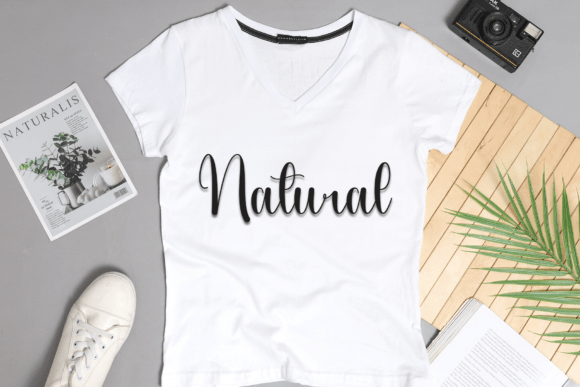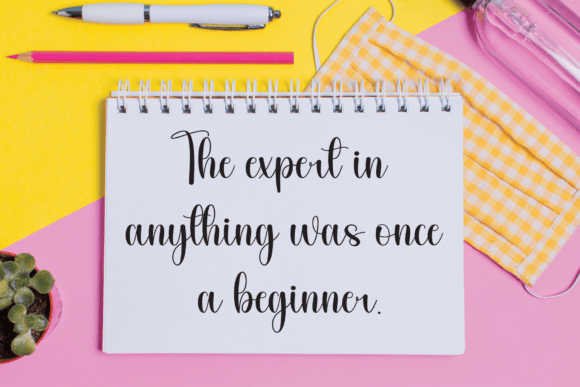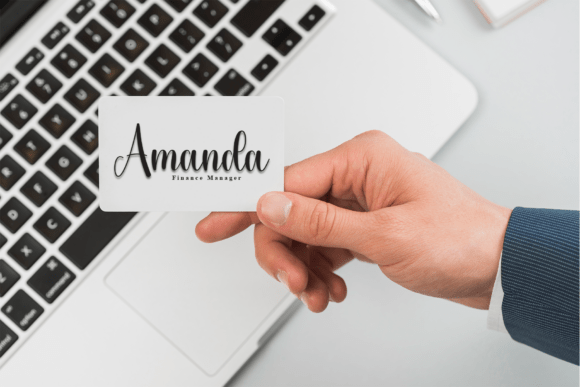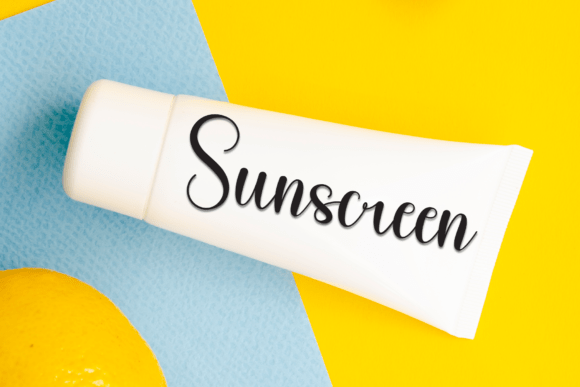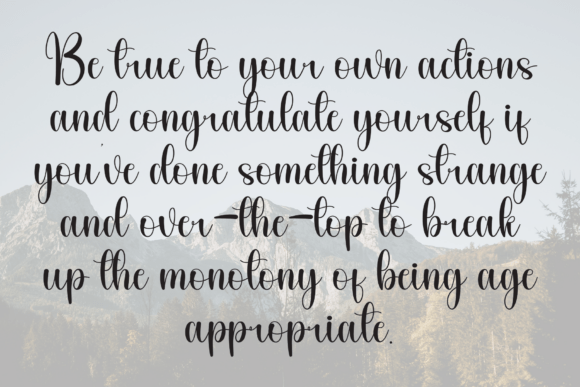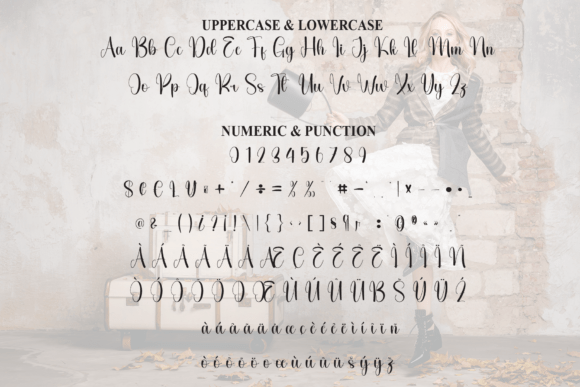
Introducing Charming Vintage: The Elegant Handwritten Script Font
Are you looking for a font that adds a touch of sophistication and playfulness to your designs? Look no further than Charming Vintage, a stylish handwritten script font that captures elegance and whimsy in every stroke. With its flowing curves and natural rhythm, this charming font is perfect for adding a personal touch to invitations, branding, and social media.
The Characteristics of Charming Vintage
Charming Vintage is a beautifully crafted font that exudes warmth and sophistication. Its graceful design features:
- Flowing curves: Charming Vintage’s curves are smooth and fluid, creating a natural rhythm that draws the eye.
- Handwritten charm: This font’s handwritten feel adds a personal touch to any project, making it perfect for invitations, greeting cards, and social media graphics.
- Elegant strokes: Charming Vintage’s strokes are confident and expressive, conveying a sense of sophistication and refinement.
- Playful flair: This font’s playful undertones add a touch of whimsy and creativity to any design.
Uses for Charming Vintage
Charming Vintage is a versatile font that can be used in a variety of design projects, including:
- Invitations: Add a touch of elegance and sophistication to wedding invitations, birthday party invites, and other special occasion cards.
- Branding: Use Charming Vintage to create a unique and memorable brand identity that stands out from the crowd.
- Social media graphics: Add a personal touch to social media graphics, such as quotes, promotions, and announcements.
- Digital crafts: Use Charming Vintage to create beautiful digital crafts, such as planners, journals, and printable art.
Why Choose Charming Vintage?
With so many fonts to choose from, why should you choose Charming Vintage? Here are just a few reasons:
- Unique and distinctive: Charming Vintage is a one-of-a-kind font that will set your designs apart from the crowd.
- Elegant and sophisticated: This font’s elegant design makes it perfect for projects that require a touch of refinement and sophistication.
- Playful and creative: Charming Vintage’s playful undertones add a touch of whimsy and creativity to any design.
- Easy to read: Despite its elegant design, Charming Vintage is easy to read, making it perfect for body text and captions.
Tips for Using Charming Vintage
Here are a few tips for getting the most out of Charming Vintage:
- Use it sparingly: Charming Vintage is a bold font, so use it sparingly to add emphasis and create visual interest.
- Pair it with contrasting fonts: Pair Charming Vintage with contrasting fonts to create visual interest and add depth to your designs.
- Experiment with colors: Charming Vintage looks beautiful in a range of colors, so don’t be afraid to experiment and find the perfect hue for your design.
Charming Vintage is a beautiful handwritten script font that adds a touch of elegance and playfulness to any design. With its flowing curves, natural rhythm, and elegant strokes, this font is perfect for designers and crafters looking to add a personal touch to their projects. Whether you’re creating invitations, branding, or social media graphics, Charming Vintage is the perfect choice. So why wait? Download Charming Vintage today and start creating beautiful, charming designs that capture the essence of elegance and whimsy.